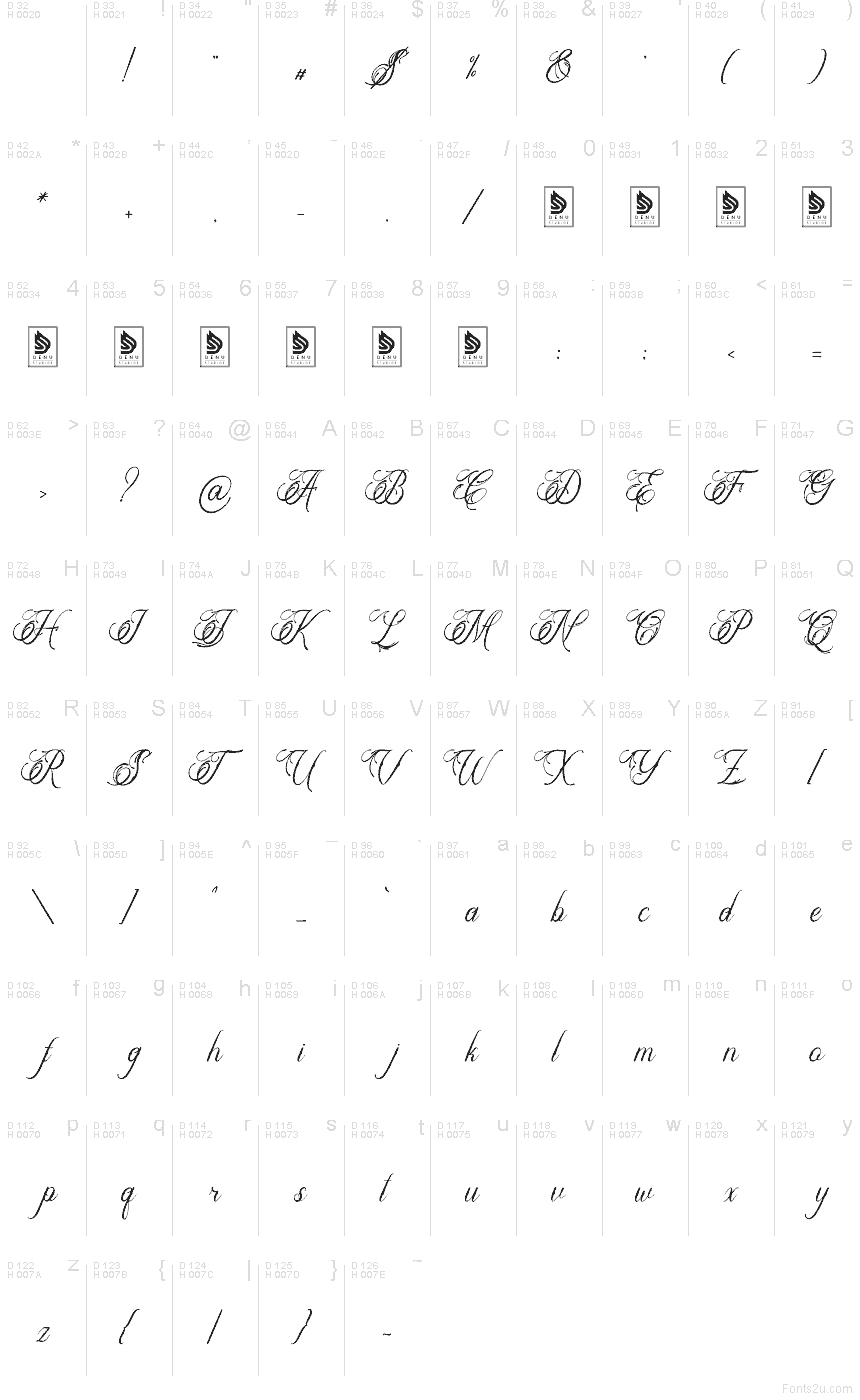
Alfiany Dek by Denustudios is a free calligraphy font with a romantic copperplate feel. The letters sweep across the line in long, airy loops and fine hairline turns, while the heavier downstrokes keep the script anchored and give it a graceful, formal rhythm.
It fits naturally in wedding stationery, beauty packaging, boutique branding, book covers, and social media title cards where a free font can bring a handwritten flourish without feeling rustic. Because the strokes stretch and curl so generously, it works best in short names, signature-style logos, monograms, and opening words that can let those flourishes breathe.